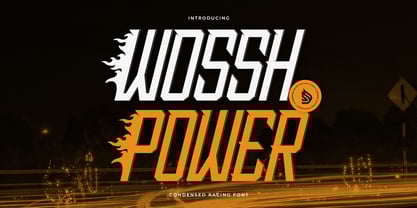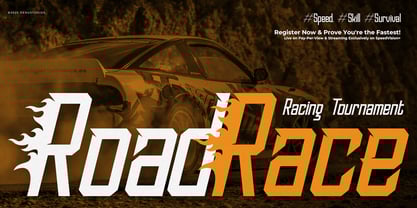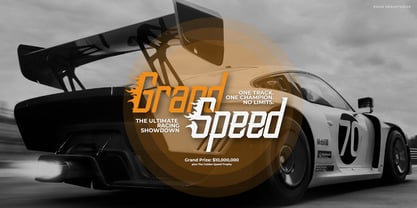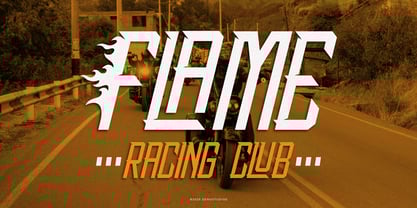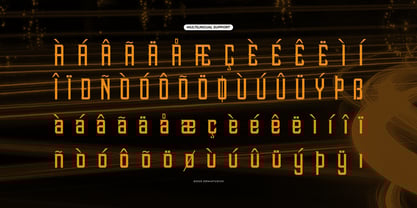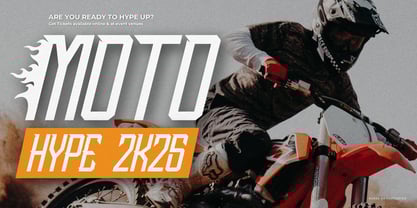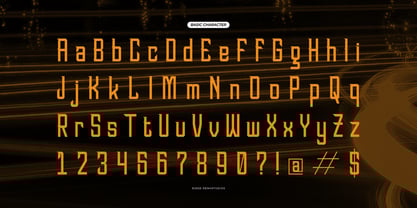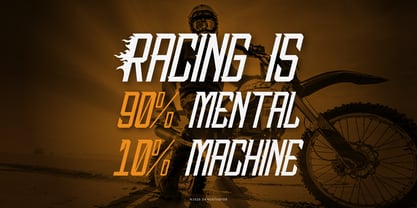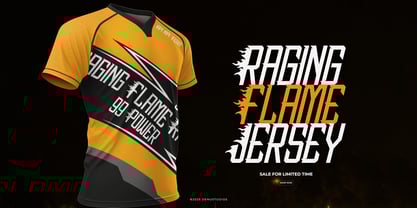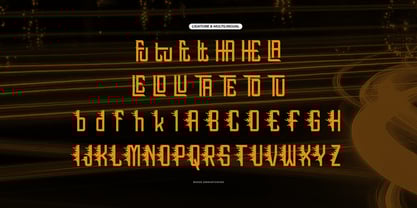
Wossh Power
by Denustudio
The Wossh Power Font Family was designed by Dede Nugraha and published by Denustudio. Wossh Power contains 2 styles and family package options.
Wossh Power | Condensed Racing Font, from Denustudios, suitable for any projects such as: logos, branding projects, homeware designs, product packaging, mugs, quotes, posters, shopping bags, t-shirts, book covers, name card, invitation cards, greeting cards, label, photography, watermark, special events, and all your other lovely projects that need Condensed Racing Font a taste.
• Regular and Italic
• Alternate and Ligature